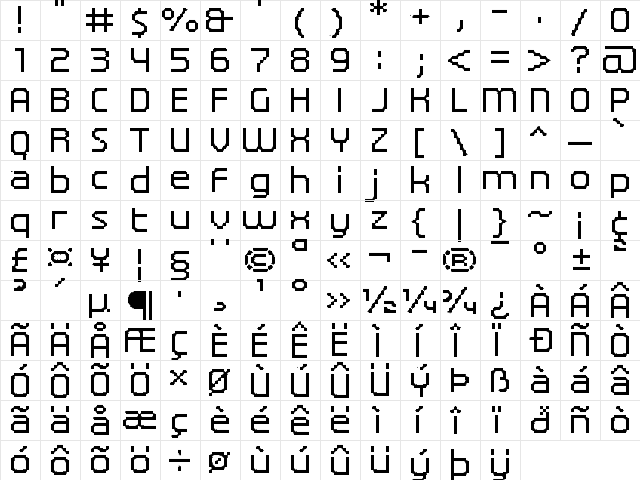
UF Elementar B 11.11.4 a Regular
| Foundry | Created by Gustavo Ferreiraand Ultrafonts.com. |
| Designer | Gustavo Ferreira |
Design Context for UF Elementar B 11.11.4 a Typeface
UF Elementar B 11.11.4 a offers clean, dependable letterforms without strong stylistic allegiance, making it a practical choice for designers who need flexibility.